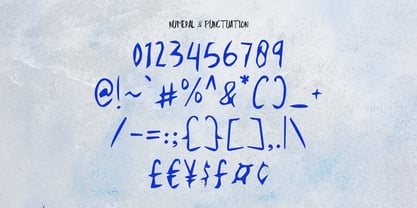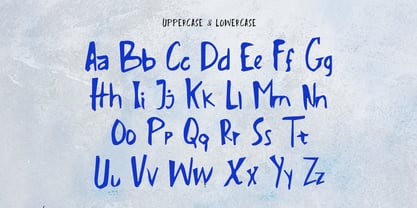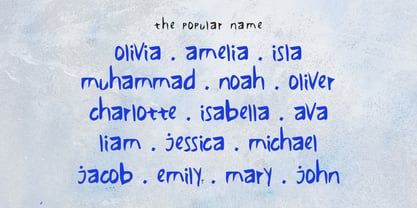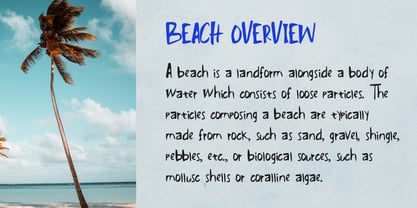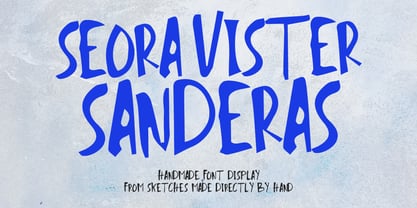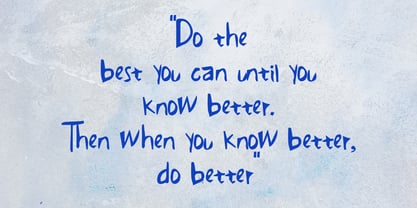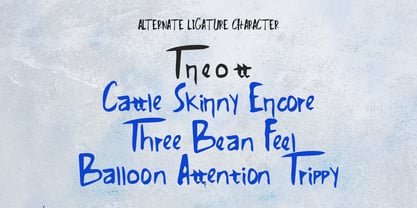
MC Seora Vister Sanderas
by Maulana Creative
The MC Seora Vister Sanderas Font Family was designed by Gilang Maulana and published by Maulana Creative. MC Seora Vister Sanderas contains 1 styles. More about this family
Seora Vister Sanderas is a handmade font display brush font. With fun character with a bit of ligatures and alternates. To give you an extra creative work. Seora Vister Sanderas font support multilingual more than 100+ language. This font is good for logo design, Social media, Movie Titles, Books Titles, a short text even a long text letter and good for your secondary text font with sans or serif. Make a stunning work with Seora Vister Sanderas font.
Designers: Gilang Maulana
Foundry: Maulana Creative